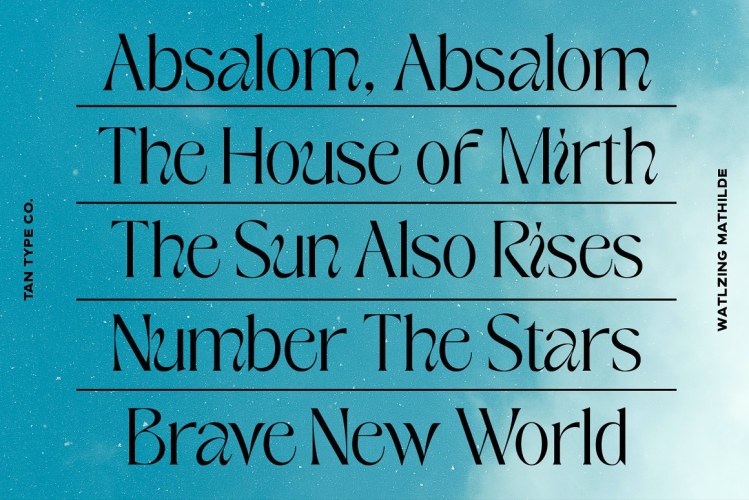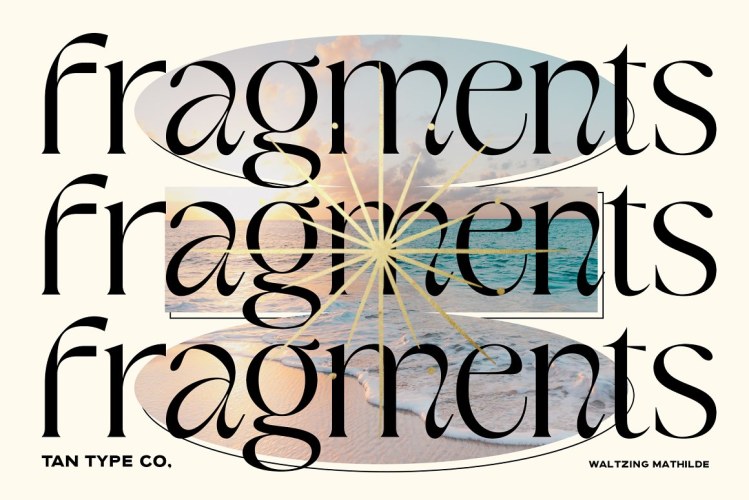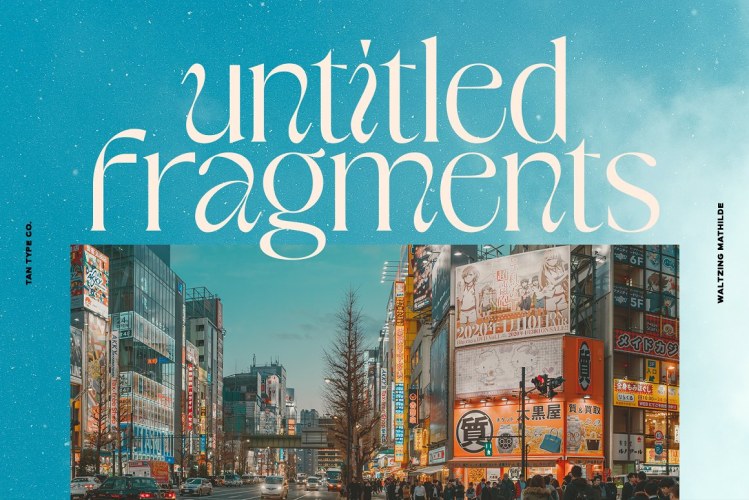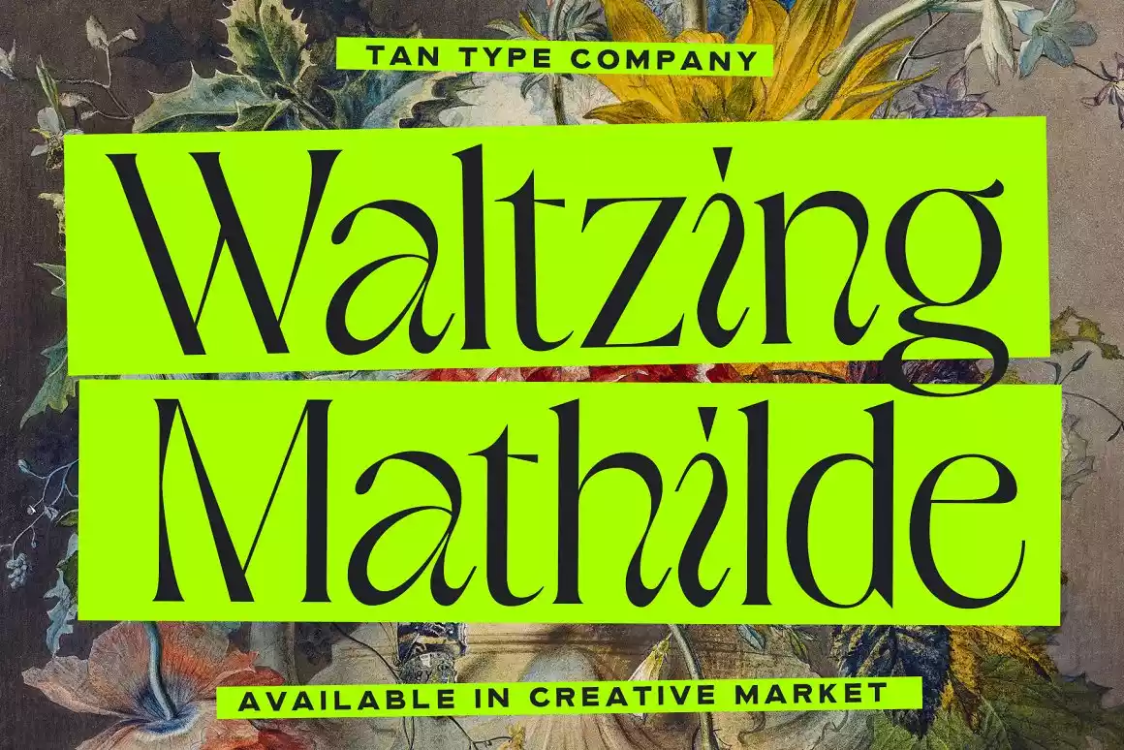
TAN WALTZING MATHILDE Font
TAN WALTZING MATHILDE is an elegant display serif font that has both elegance and a little unconventionality. With its moody nature, the typeface adds a personality to any design that makes it suitable for a wide range of creative projects. Available in the most common font formats, TAN WALTZING MATHILDE is a good typography to designers who want to combine sophistication and humor.
TAN WALTZING MATHILDE Font is a Display Fonts font that brings a professional and versatile look to your projects. TAN WALTZING MATHILDE is an elegant display serif font that has both elegance and a little unconventionality.